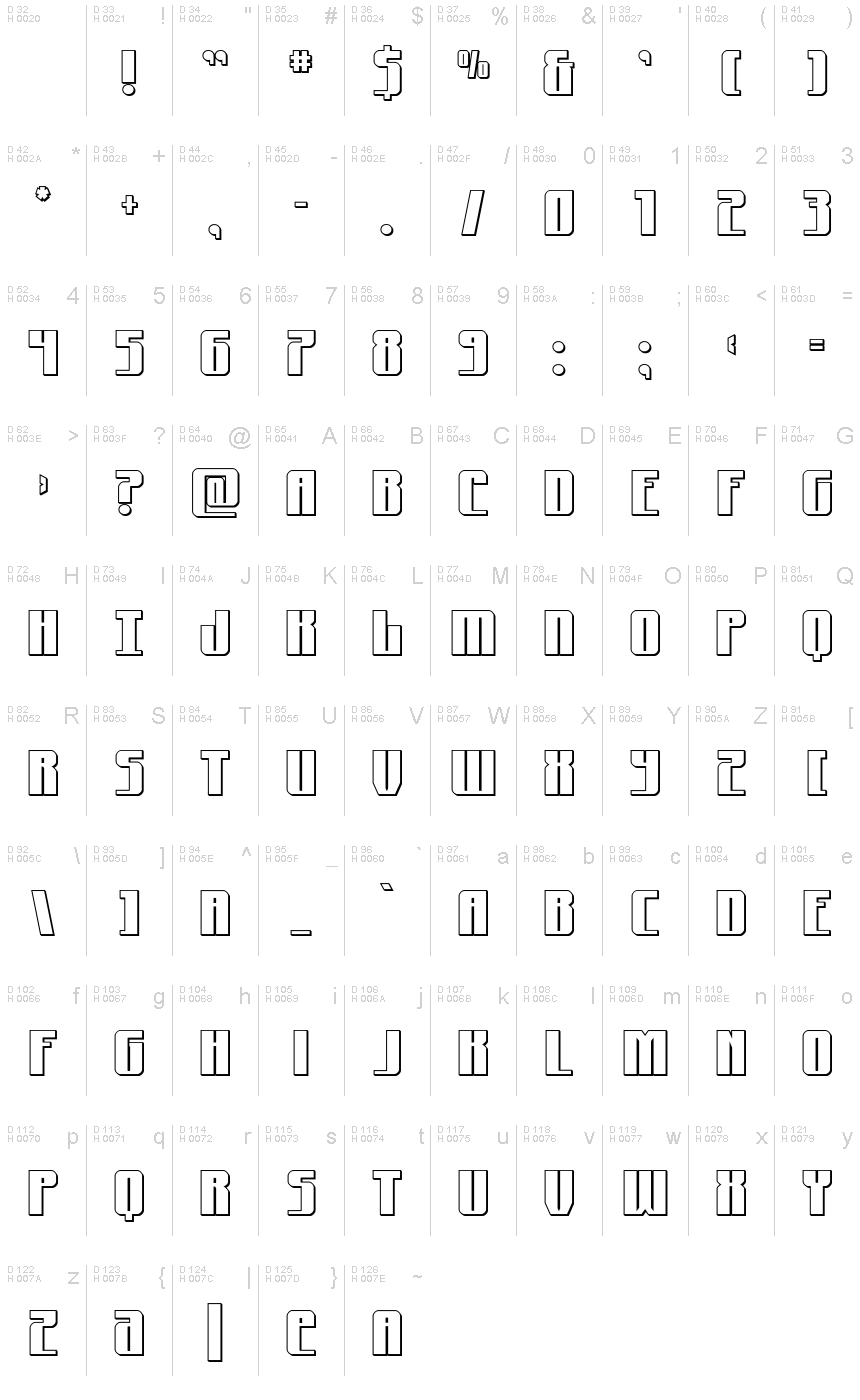
Xeno-Seeker 3D
Xeno-Seeker 3D font was designed by Iconian Fonts. A three dimensional offering from the Xeno-Seeker type family, this modern & futuristic font makes a bold statement with strong forms and high contrast letterforms. Its meticulous, blocky structure is sure to reveal new surprises with every word it brings to life!
Ideal for use in large headings, displays and as game logos given its unique style that delivers powerful visual impact!